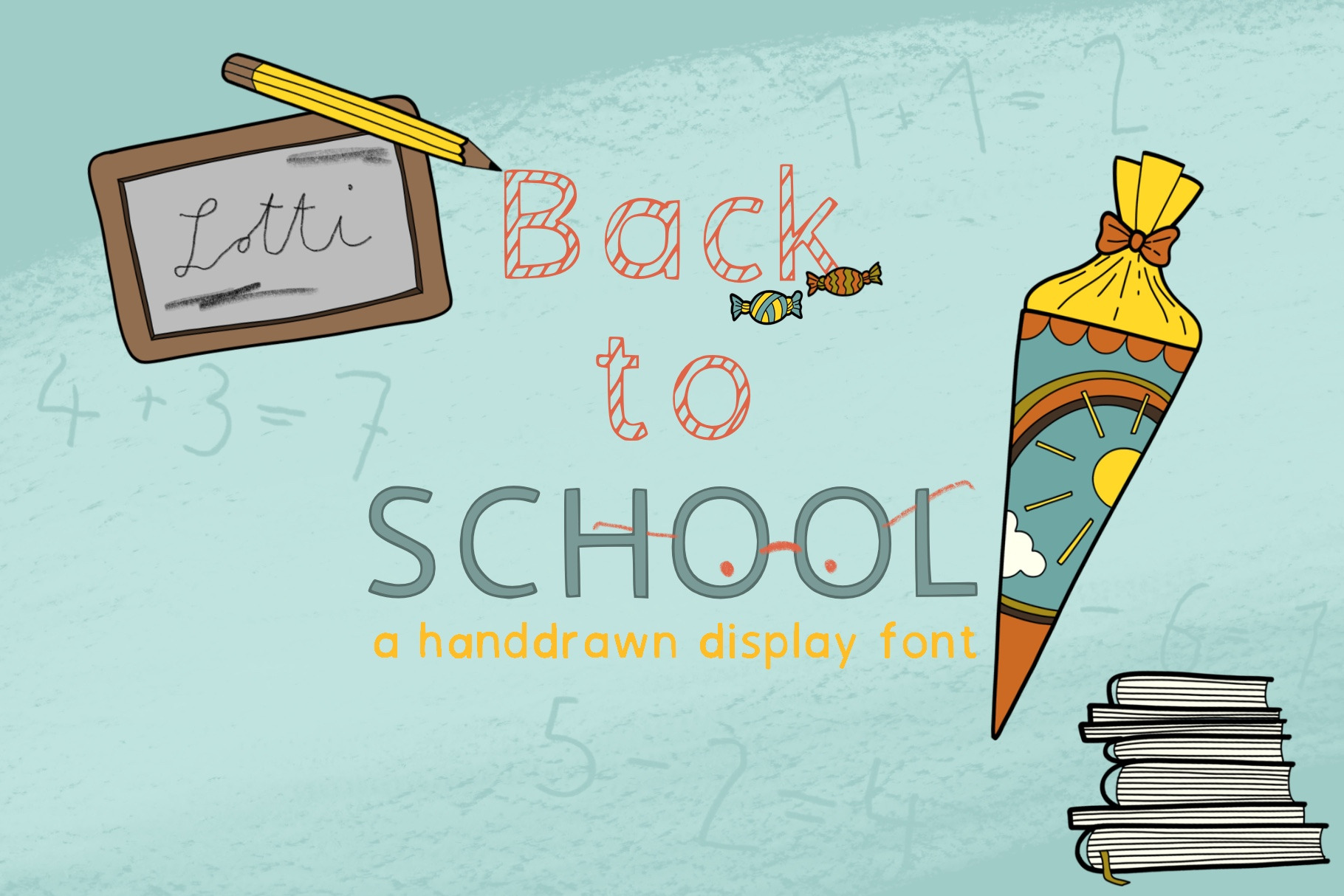
Back To School font + illustrations
LAFOLOs Back To School - design set: Including one display font in two variations (hatched + outline) with the most common ligatures, 25 illustrations (or more, who counts while drawing...) and three seamless repeat pattern. All is about school, inspired by the great feeling when by the end of summer all notebooks, pens and other stuff for school was new... Use the package to create individual designs for T-shirts for preschoolers, greeting cards, notebooks, stickers, "Schultüten" (and iAd be happy to explain what this German tradition is) and so much more.
For color variation of the typeface, use the outline font and select the filling with the Magic Wand(Photoshop)/Automatic Select (Procreate) and fill with the color of choice.